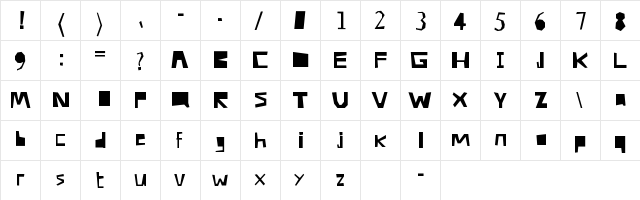
Electro Regular
| Designer | Lauren Harrison |
Design Context for Electro Typeface
Electro is a composed and adaptable typeface that performs quietly and consistently across a wide range of design contexts.